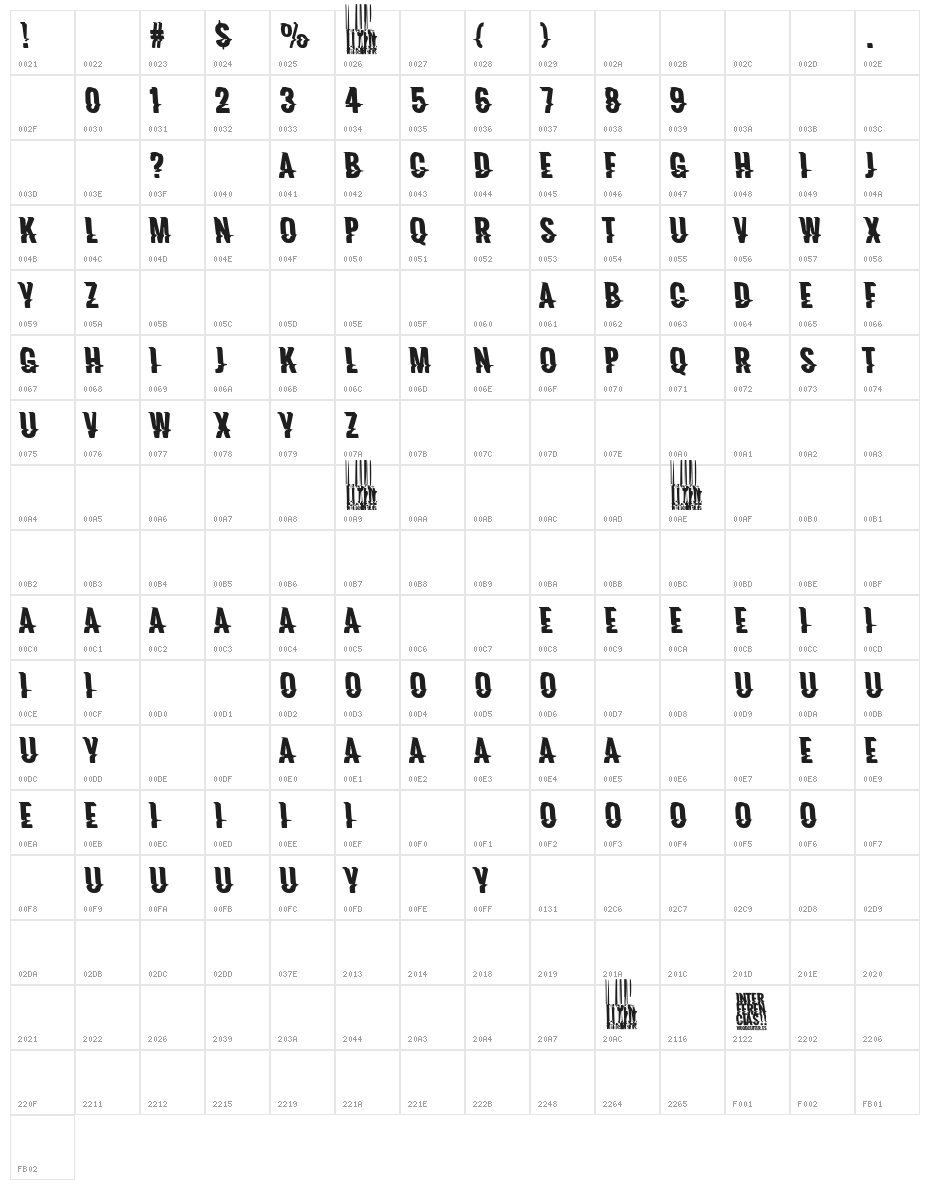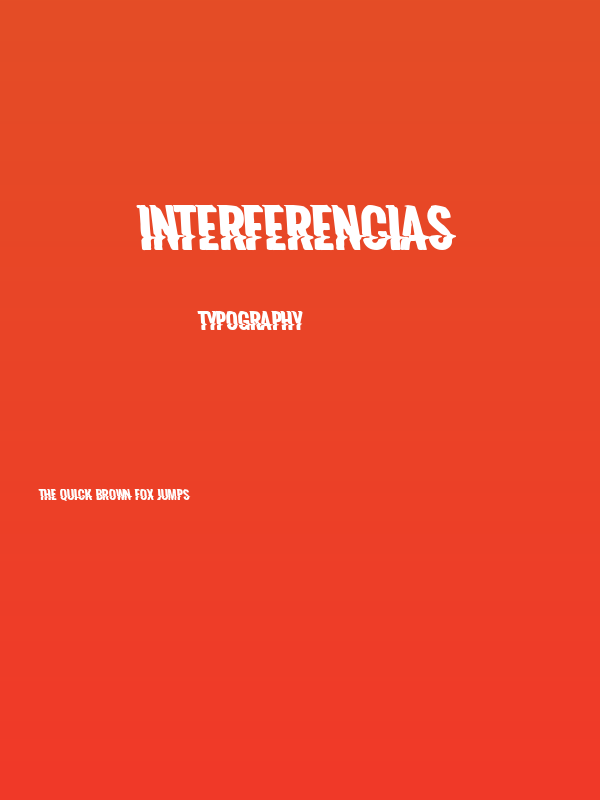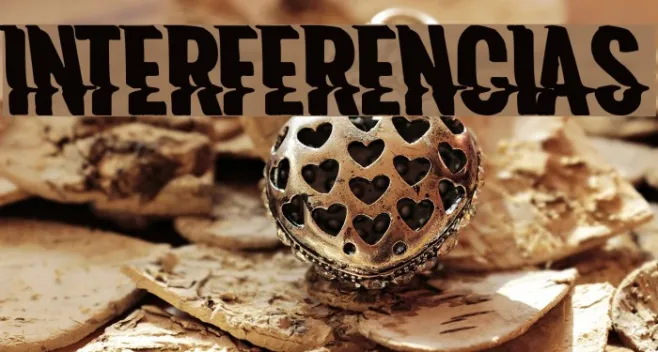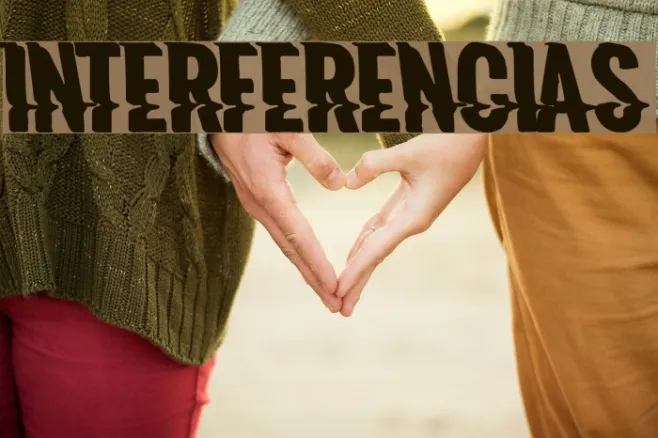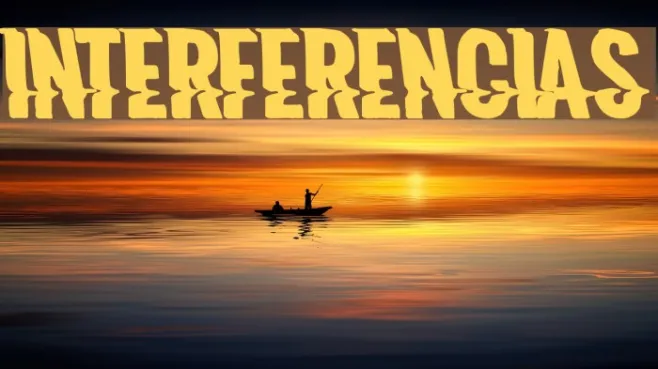
Interferencias Font
Interferencias Description
This font features a bold and striking design with a unique interference effect that creates a sense of movement and distortion. The characters are thick and heavy, with a strong presence that commands attention. The interference lines running horizontally through the letters add an edgy, modern twist, making it ideal for projects that require a bold statement. The uppercase and lowercase letters maintain a consistent style, while the numerals and special characters are equally impactful. This font is perfect for creative projects that aim to stand out with a distinctive and unconventional look.
INTERFERENCIAS UPPERCASE
INTERFERENCIAS LOWERCASE
INTERFERENCIAS OTHER CHARS
| Proposed Projects | Ideal for album covers, posters, branding, and any project needing a bold, eye-catching design. |